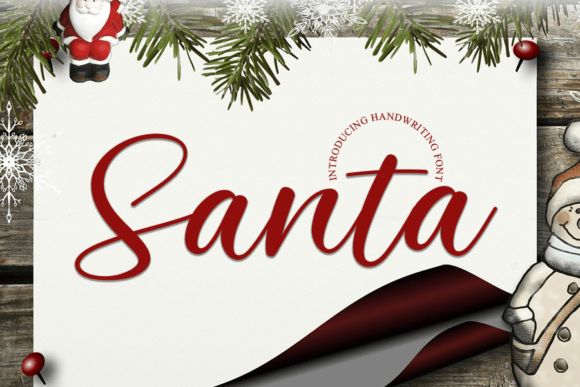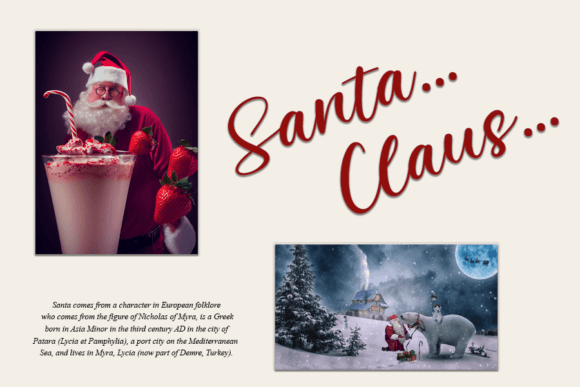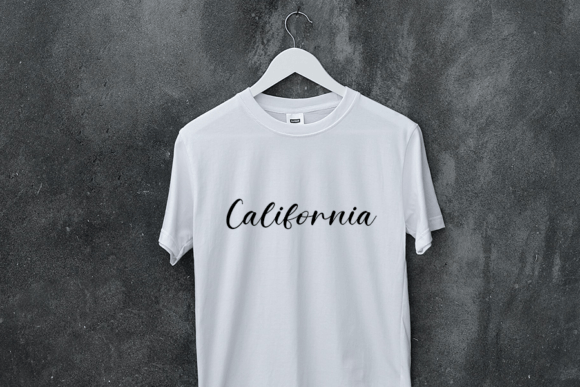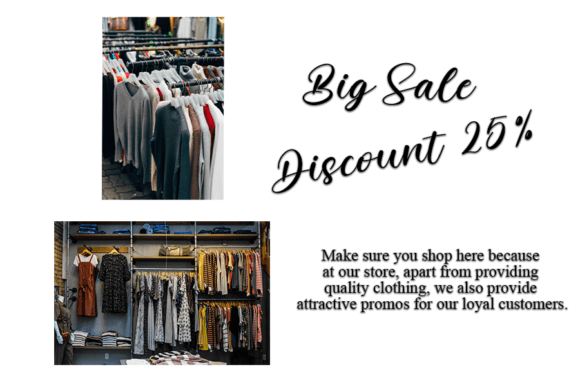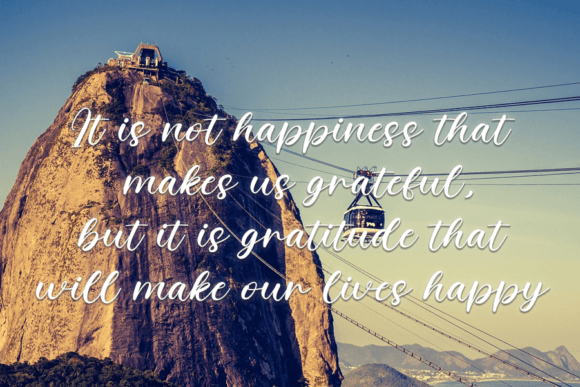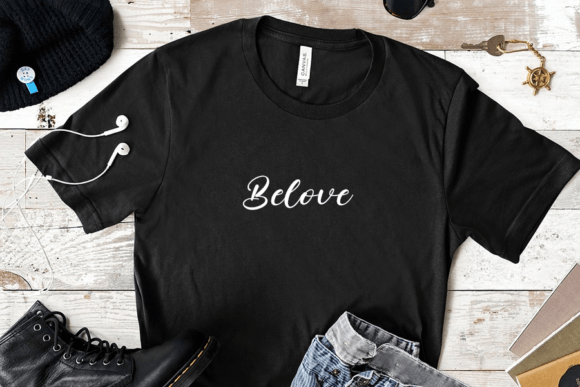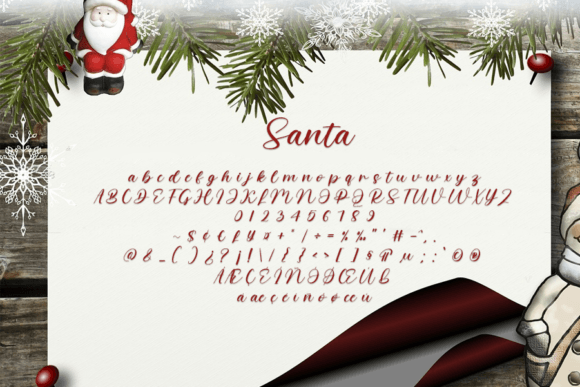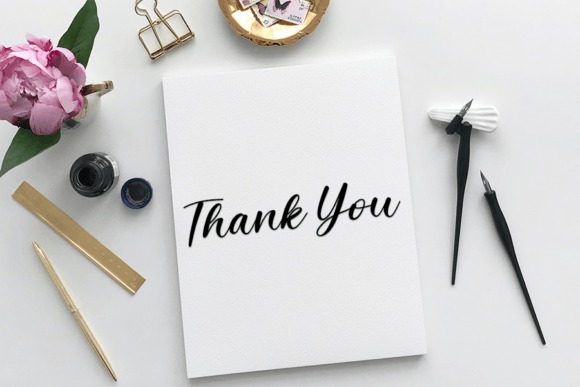
Santa Font
Santa: A Unique Script Font with Festive Elegance
When it comes to adding charm and personality to your holiday designs, Santa is the unique script font you need. With its smooth curves and elegant flow, Santa brings a festive yet classy feel to any creative project. Whether you’re designing Christmas cards, crafting seasonal decorations, or working on digital content, this font delivers both beauty and usability.
Its handwritten style reflects warmth and joy—making it ideal for the holiday season and beyond.
Ideal for Holiday-Themed Projects and More
While Santa is perfect for Christmas-themed designs, its elegant style also works wonderfully across a variety of contexts. The font blends handwritten authenticity with refined sophistication, allowing you to use it in both casual and professional projects.
Here are some great uses for Santa font:
• Christmas and holiday greeting cards
• Gift tags, wrapping paper, and printable crafts
• Social media graphics with a festive message
• Invitations for seasonal events and parties
• Product packaging and labels for holiday promotions
Whether you’re crafting for fun or building your brand, this font adds that perfect holiday sparkle.
Why Choose Santa as Your Unique Script Font?
There are many script fonts available, but few offer the versatility and festive charm that Santa brings. Its thoughtfully crafted characters flow seamlessly, creating stunning visual harmony in any layout.
Top features of Santa include:
• Beautifully balanced uppercase and lowercase letters
• Natural ligatures for smooth text transitions
Even if you’re new to design tools, Santa makes it simple to create elegant designs effortlessly.
Add Holiday Spirit to Every Word
Fonts do more than display words—they communicate mood. Santa helps you express warmth, joy, and sophistication in a single stroke. Its modern calligraphy feel blends well with minimalist or richly decorated layouts alike.
Try pairing Santa with:
• Gold foil accents or red-and-green palettes
• Clean sans-serif fonts for visual contrast
• Snowflake graphics or seasonal illustrations
The results will be merry and memorable.
Santa isn’t just another font—it’s a festive tool that empowers your creativity. Whether you’re building your brand, sending holiday greetings, or launching seasonal products, this unique script font will help your message stand out beautifully.